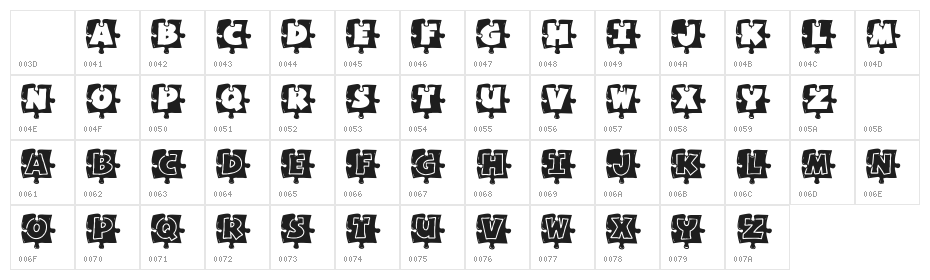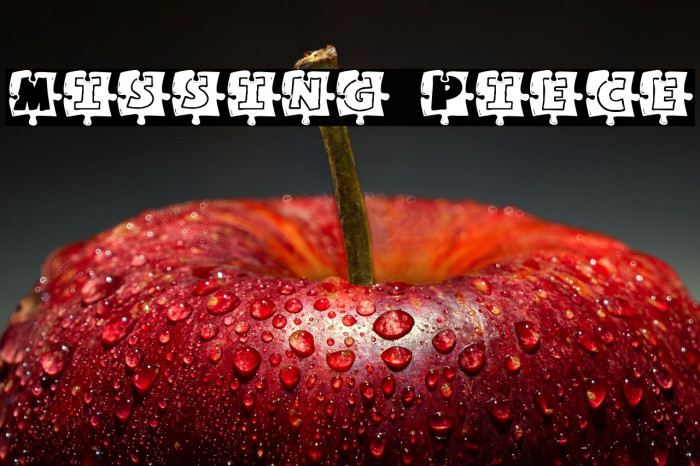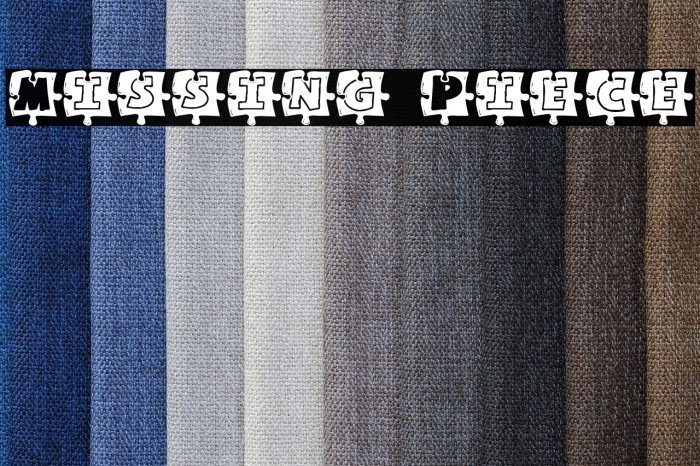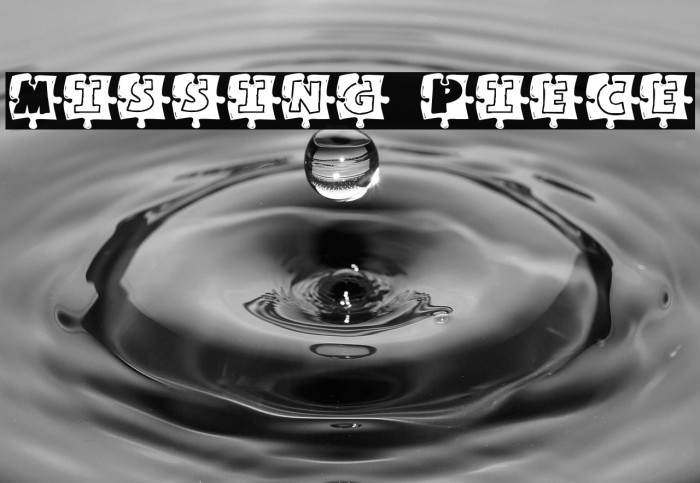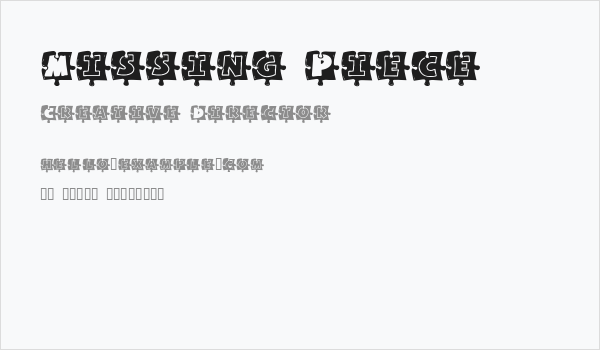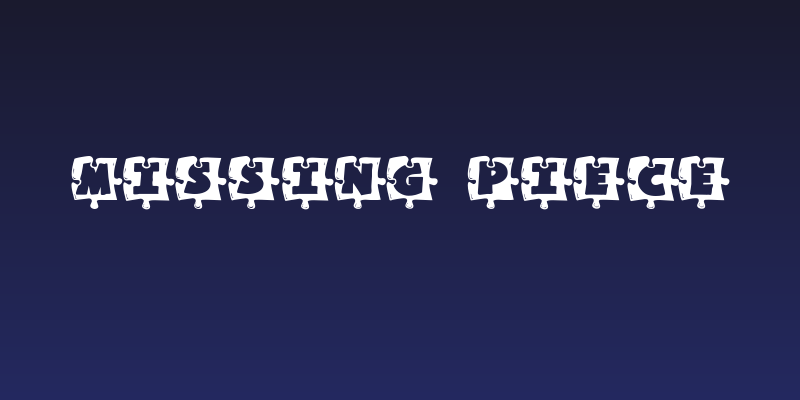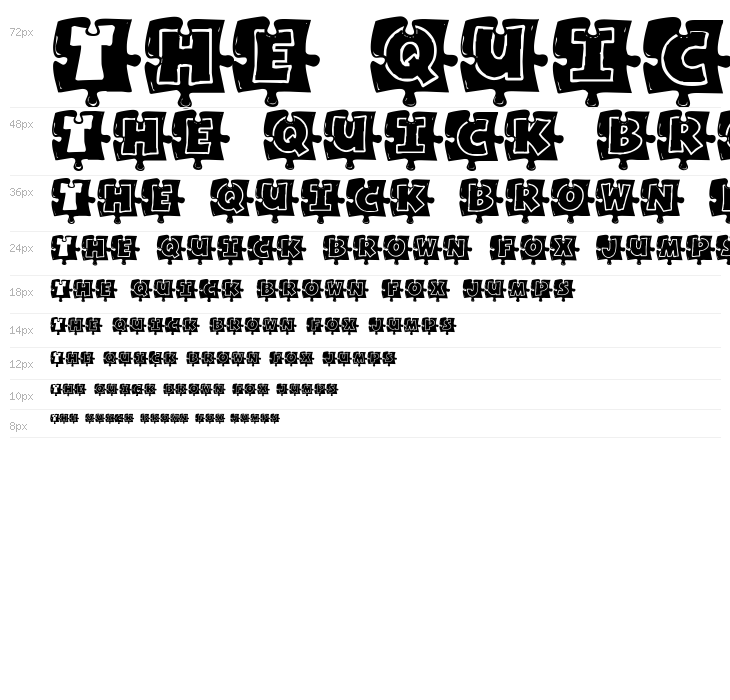
Missing Piece Font
Missing Piece Description
This font features a playful and unique design, with each character resembling a piece of a jigsaw puzzle. The bold, blocky letters have a strong presence, making them ideal for attention-grabbing designs. The puzzle piece elements add a whimsical touch, making the font suitable for creative and informal projects. The characters are uniformly styled, maintaining consistency across the alphabet. This font is perfect for projects that aim to convey fun, creativity, and a sense of playfulness.
| Overall Style | Playful, Creative |
| Proposed Projects | Ideal for children's books, educational materials, playful branding, and creative posters. |